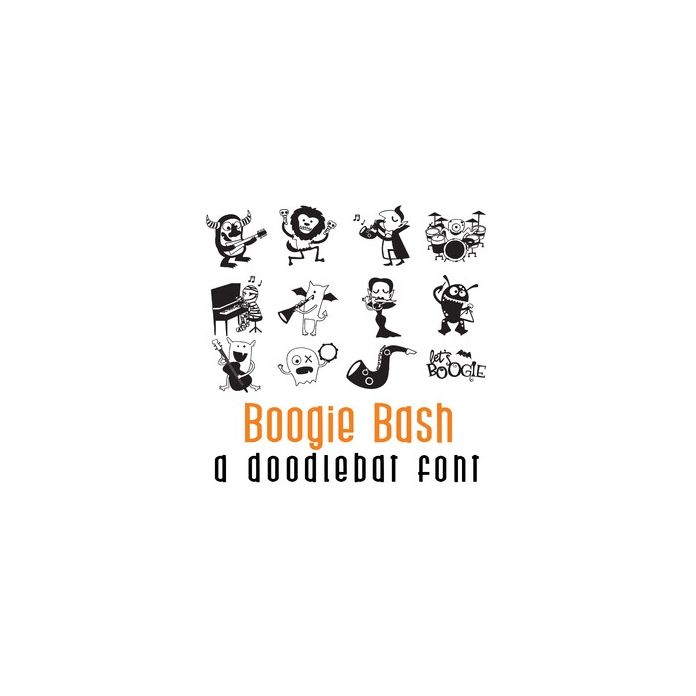
This fun doodle style doodlebat font features 26 spooky Halloween characters ready to boo-gie! Perfect for cards, crafts, gifts, decor, scrapbook pages, planner stickers and more! Dingbats are A-Z and 0-9.